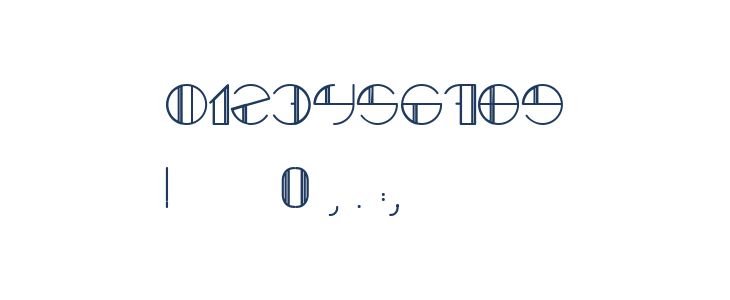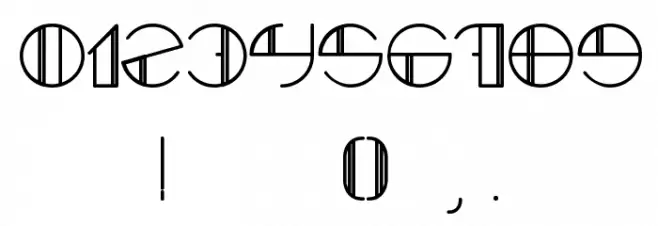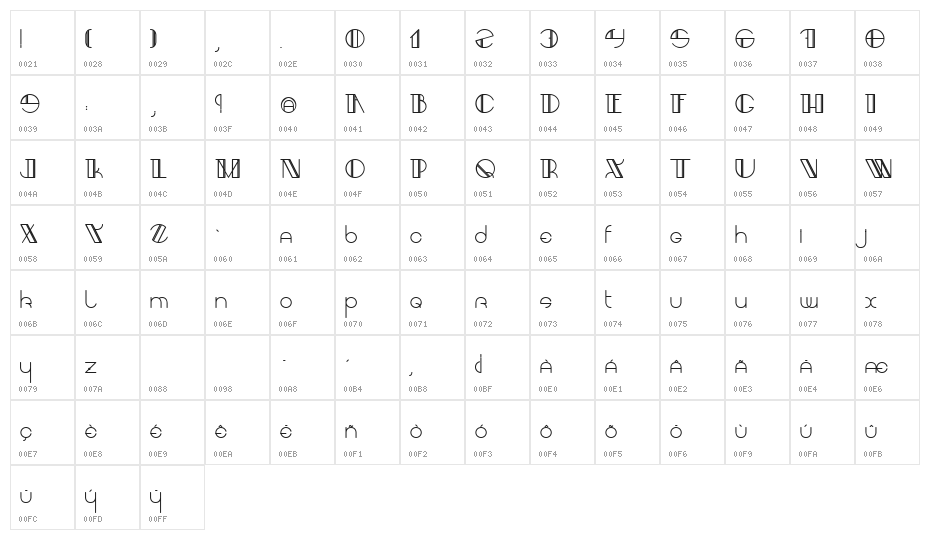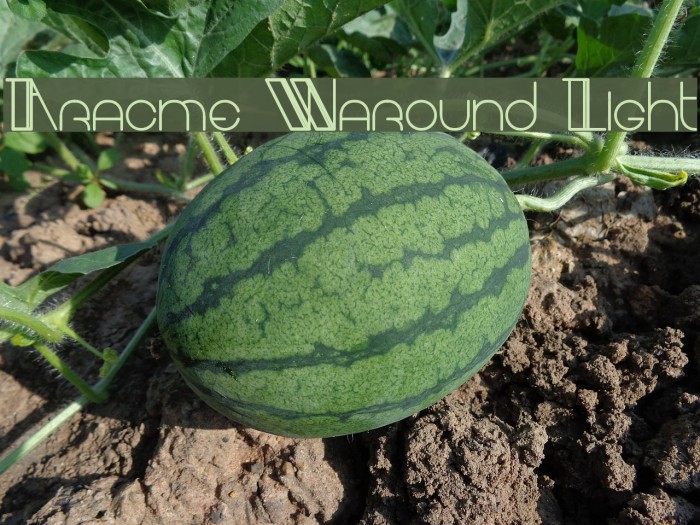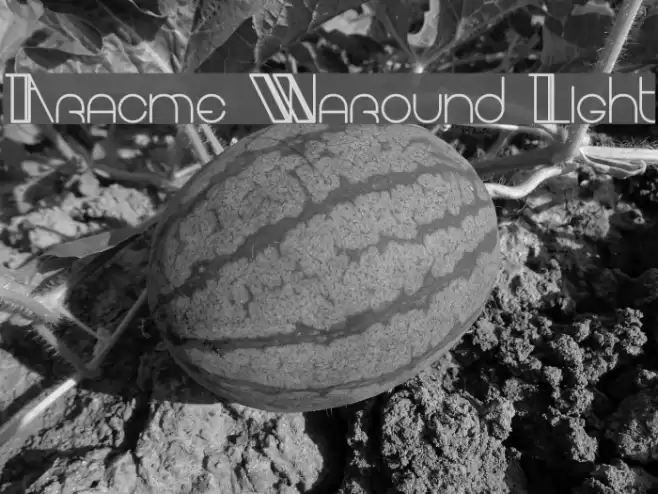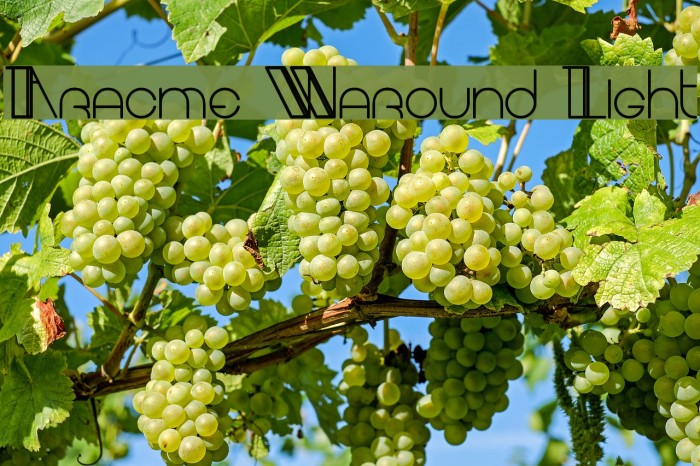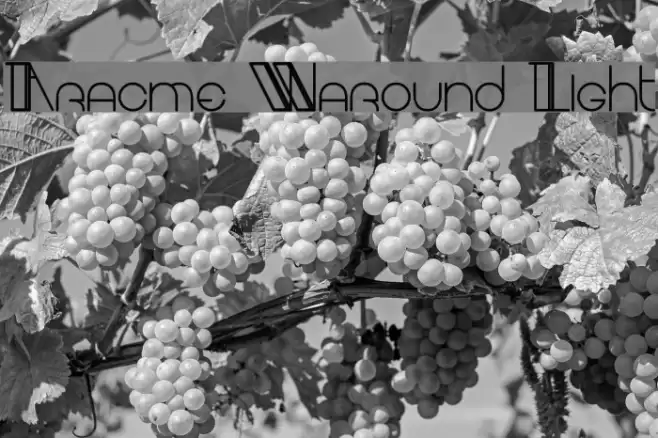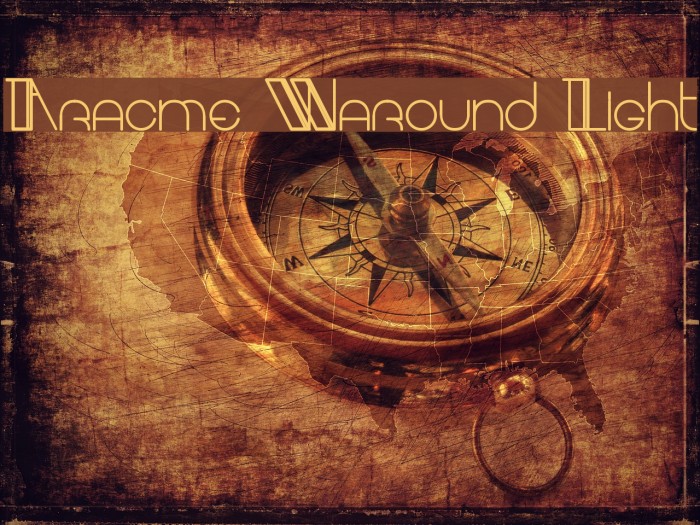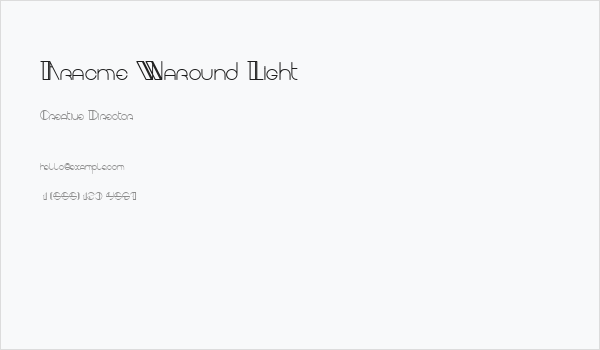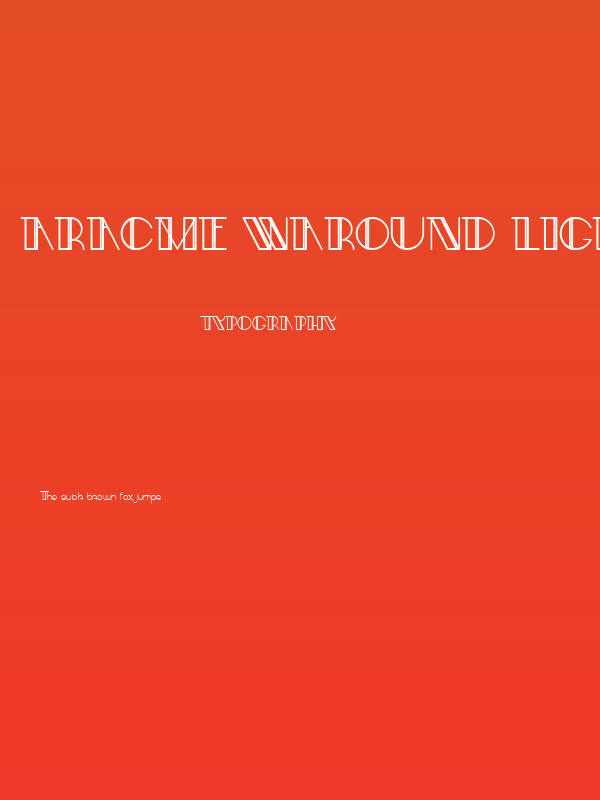
Aracme Waround Light Font
Aracme Waround Light Description
This font features a unique and modern design with geometric elements and a futuristic feel. The uppercase letters are characterized by their angular and linear shapes, creating a sense of movement and dynamism. The lowercase letters maintain a similar style but with a softer, more rounded approach. Numbers and special characters continue this theme, incorporating circular and linear motifs that enhance the overall aesthetic. The font's thin strokes and open spaces give it a light and airy appearance, making it suitable for creative and contemporary projects.
| Use Case | Logos, Posters, Digital Media |
| Proposed Projects | Ideal for branding, logos, posters, and digital media that require a modern and innovative look. |